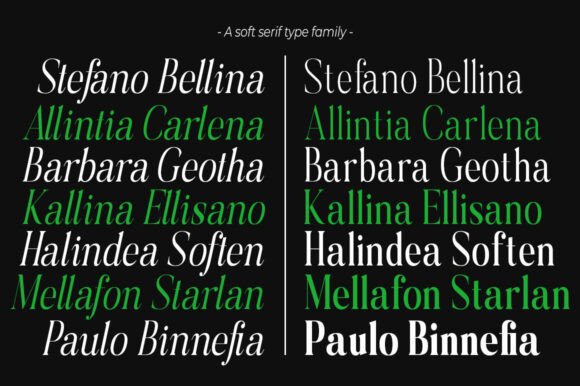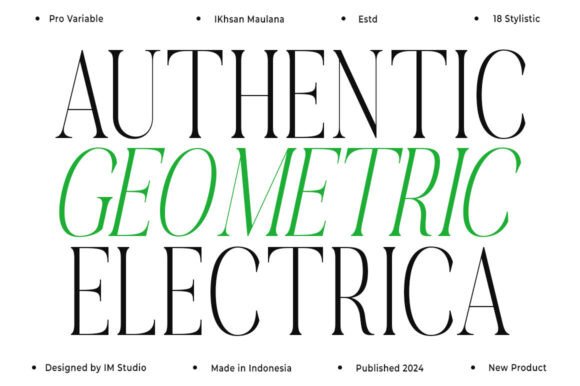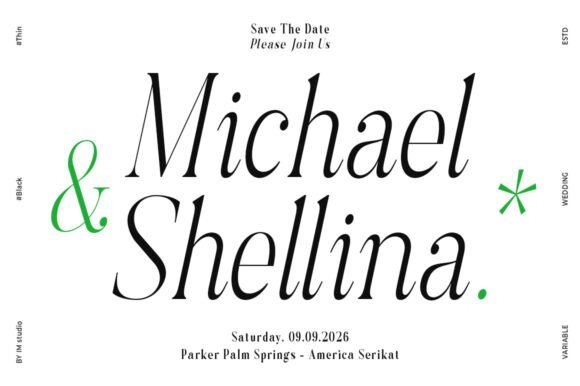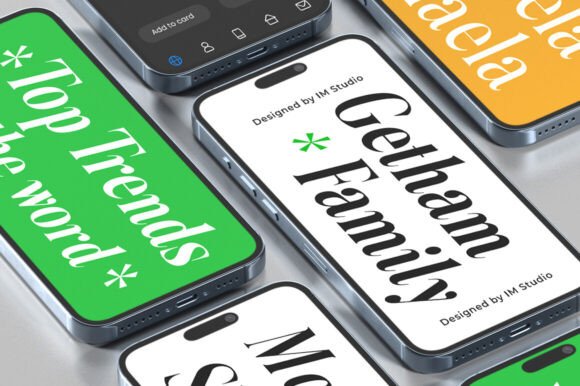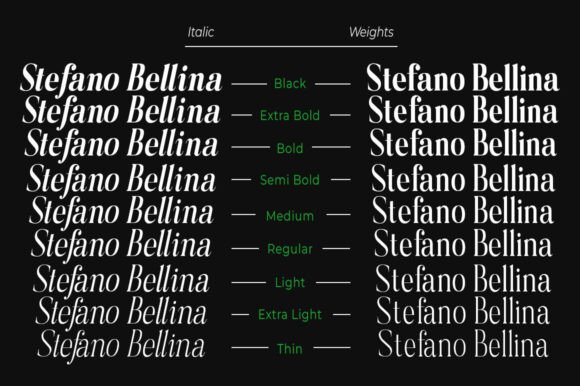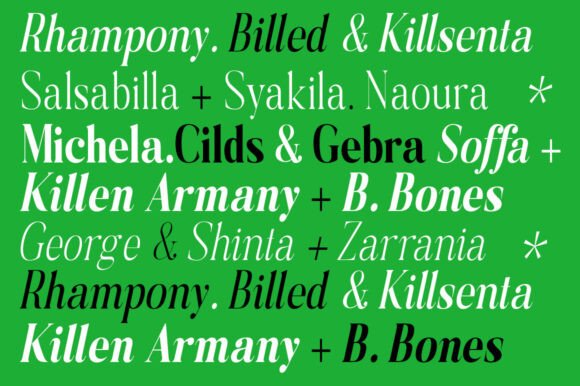
Discover the Timeless Elegance of Blackline Gothic Font
In the world of typography, few fonts manage to strike a balance between classic elegance and modern sophistication. Blackline Gothic, however, achieves this feat with remarkable finesse. This stunning serif typeface brings together the best of both worlds, offering a unique blend of retro charm and contemporary flair. Whether you’re a designer, craftsperson, or simply a typography enthusiast, Blackline Gothic is sure to captivate you with its exceptional style and versatility.
The Distinctive Characteristics of Blackline Gothic
Blackline Gothic is not just another font; it’s a comprehensive typeface designed to make a statement. Here are some of its standout features:
- Classic and Elegant Retro Serif: Blackline Gothic boasts a classic, elegant design with a retro twist, making it perfect for projects that require a touch of nostalgia.
- Modern Twist: Despite its vintage roots, Blackline Gothic has been crafted with a modern sensibility, ensuring it remains relevant and fresh.
- Stunning Contrast: The font features remarkable contrast between its thick and thin strokes, adding depth and visual interest to any design.
- Sharp Italics: The italic versions of Blackline Gothic are particularly striking, offering a dynamic and elegant way to add emphasis to your text.
- 18-Letter Weights: With a comprehensive range of 18 weights, Blackline Gothic provides unparalleled flexibility, allowing you to choose the perfect style to suit your project’s needs.
Endless Design Possibilities with Blackline Gothic
The versatility of Blackline Gothic makes it an ideal choice for a wide range of design applications. Here are just a few examples of how you can use this exceptional font:
- Luxury Branding: Create sophisticated, high-end branding that exudes elegance and refinement.
- Typeface-Focused Projects: Use Blackline Gothic as the centerpiece of your typography-focused designs, showcasing its beauty and versatility.
- Magazine and Editorial Design: Add a touch of class to your magazine and editorial designs with Blackline Gothic’s classic, yet modern aesthetic.
- Wedding Invitations: Create stunning, bespoke wedding invitations that reflect the elegance and sophistication of the occasion.
- Poster Designs: Use Blackline Gothic to create eye-catching posters that demand attention.
- Logo Design: Craft memorable, impactful logos that showcase your brand’s personality and style.
Why Designers and Crafters Love Blackline Gothic
So, what makes Blackline Gothic a favorite among designers and crafters? Here are a few reasons:
- Readability: Despite its elegant design, Blackline Gothic remains highly readable, even at smaller sizes.
- Flexibility: With 18 weights to choose from, you can adapt Blackline Gothic to suit any design requirement.
- Nostalgic Appeal: The font’s retro roots evoke a sense of nostalgia, making it perfect for projects that require a vintage or classic feel.
- Modern Relevance: Blackline Gothic’s modern twist ensures it remains relevant and fresh, even in contemporary designs.
Blackline Gothic is a truly exceptional font that offers a unique blend of classic elegance and modern sophistication. Its stunning contrast, sharp italics, and comprehensive range of weights make it an ideal choice for a wide range of design applications. Whether you’re a designer, craftsperson, or simply a typography enthusiast, Blackline Gothic is sure to captivate you with its timeless style and versatility. So why wait? Discover the beauty of Blackline Gothic today and elevate your designs to new heights.